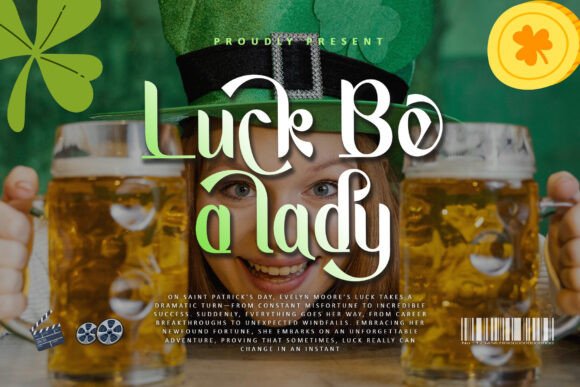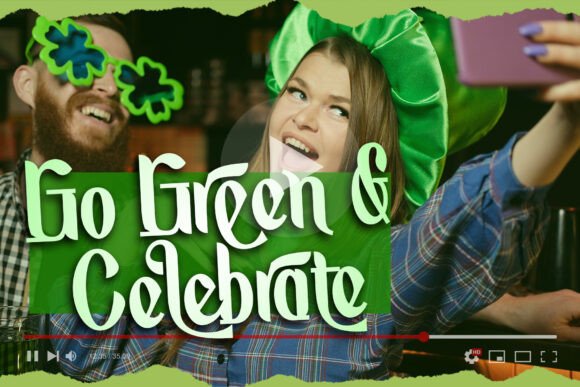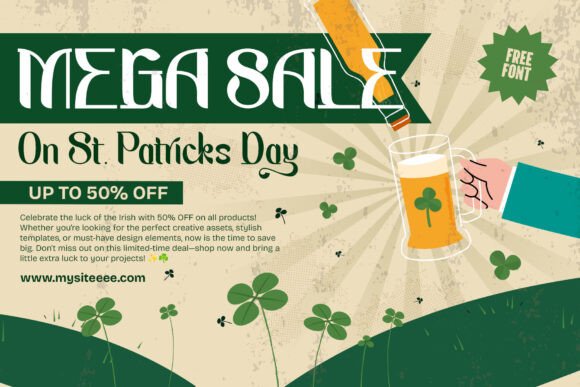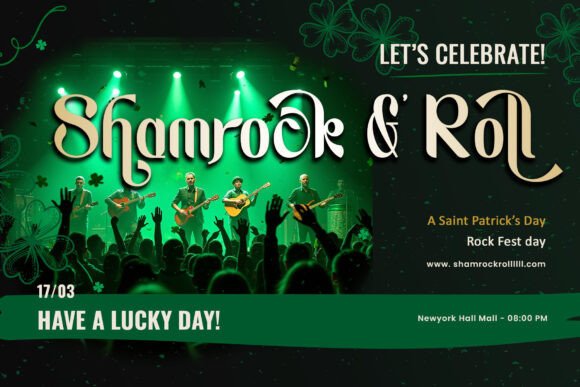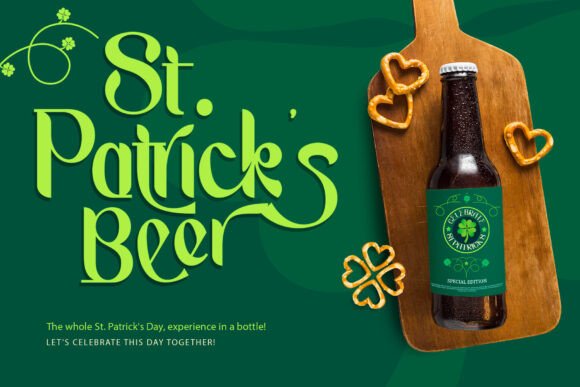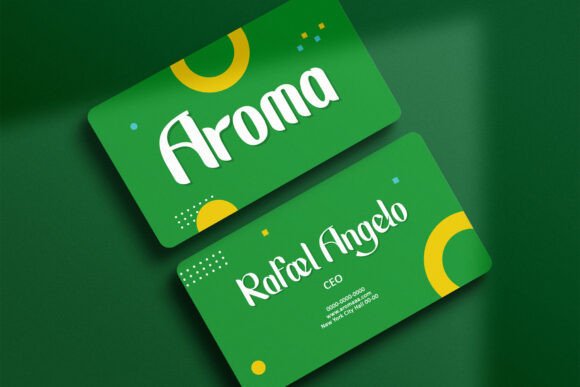
Introducing Fortunish Font: Elevate Your Designs with Timeless Elegance
In the world of typography, a font can make all the difference in the success of a design project. For designers and crafters seeking a refined and sophisticated look, Fortunish Font is an exceptional choice. This elegant serif font family is designed to bring a touch of luxury and timeless appeal to any design. With its precise craftsmanship and versatile styles, Fortunish is poised to become a go-to font for upscale branding, editorial designs, luxurious packaging, and stylish typography.
The Fortunish Advantage: Four Versatile Styles
Fortunish Font offers four distinct styles: Regular, Italic, Bold, and Bold Italic. This range of options provides designers with the flexibility to adapt their typography to suit various design requirements. Whether you’re creating a sophisticated brand identity, a stylish editorial layout, or a luxurious packaging design, Fortunish has a style to suit your needs.
- Regular: The foundation of the Fortunish family, this style exudes elegance and poise.
- Italic: Adding a touch of dynamism, the Italic style brings a sense of movement and flair to your designs.
- Bold: For emphasis and impact, the Bold style delivers a confident and assertive look.
- Bold Italic: Combining the best of both worlds, this style offers a dynamic and sophisticated appearance.
Elegant Letterforms: Confidence and Charm
Fortunish Font features elegant letterforms that exude confidence and charm. Each character is meticulously crafted to convey a sense of sophistication and refinement. The font’s classic beauty is perfectly balanced with modern versatility, making it an excellent choice for designers seeking a timeless look.
PUA Encoding: Unlocking Creative Possibilities
Fortunish Font boasts PUA (Private Use Area) encoding, providing seamless access to a wide array of unique glyphs. This feature significantly enhances creative possibilities, allowing designers to experiment with a variety of typographic elements and ornaments. With PUA encoding, you can effortlessly incorporate special characters and glyphs into your designs, taking your typography to the next level.
Applications for Fortunish Font
Fortunish Font is an incredibly versatile typeface, suitable for a range of design applications, including:
- Upscale Branding: Create a sophisticated brand identity with Fortunish’s elegant and refined letterforms.
- Editorial Designs: Elevate your editorial layouts with Fortunish’s classic beauty and modern versatility.
- Luxurious Packaging: Add a touch of luxury to your packaging designs with Fortunish’s sophisticated and elegant typography.
- Stylish Typography: Use Fortunish to create stunning typographic compositions that exude confidence and charm.
- Timeless Appeal: Fortunish’s classic beauty ensures your designs will remain stylish for years to come.
- Versatility: With four distinct styles and PUA encoding, Fortunish offers unparalleled flexibility.
- Elegance: Fortunish’s refined letterforms exude sophistication and confidence.
- Creative Possibilities: Unlock a world of creative possibilities with Fortunish’s extensive range of glyphs and special characters.
In conclusion, Fortunish Font is an exceptional choice for designers and crafters seeking a refined, sophisticated, and versatile typeface. With its elegant letterforms, four versatile styles, and PUA encoding, Fortunish is poised to elevate your designs to new heights. Whether you’re creating upscale branding, editorial designs, luxurious packaging, or stylish typography, Fortunish is the perfect font to bring a touch of timeless elegance to your work.